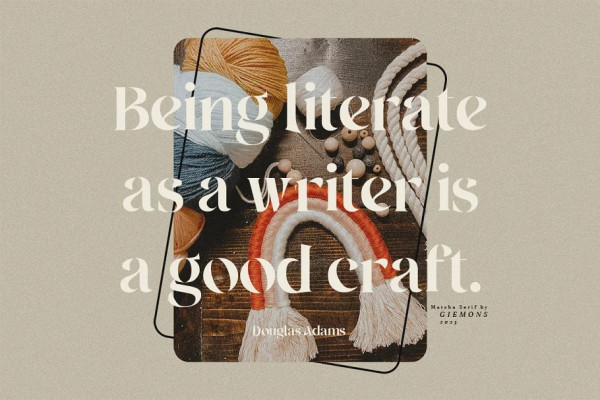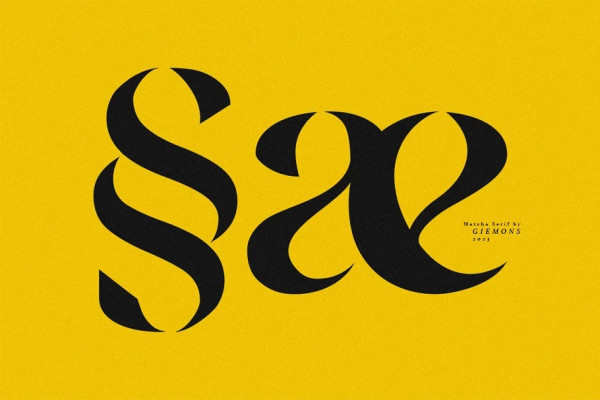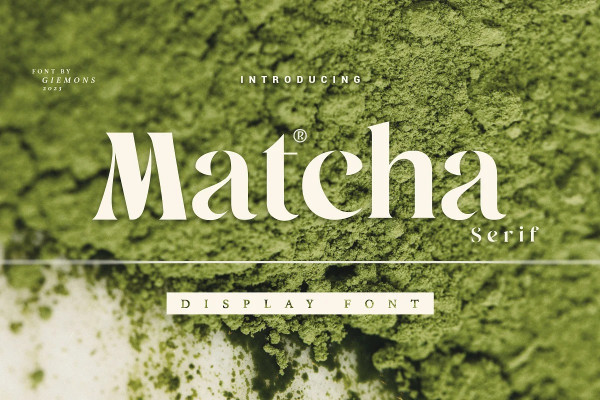
Matcha Typeface
Matcha Typeface is a Serif display. It’s mixed Modern and retro style, loud, yet poppin’ the vibes that will be stylish in any era. Perfectly fit for branding, logo, digital concept, promotion design, poster, flyer, graphic design, anytime you need a future touch.